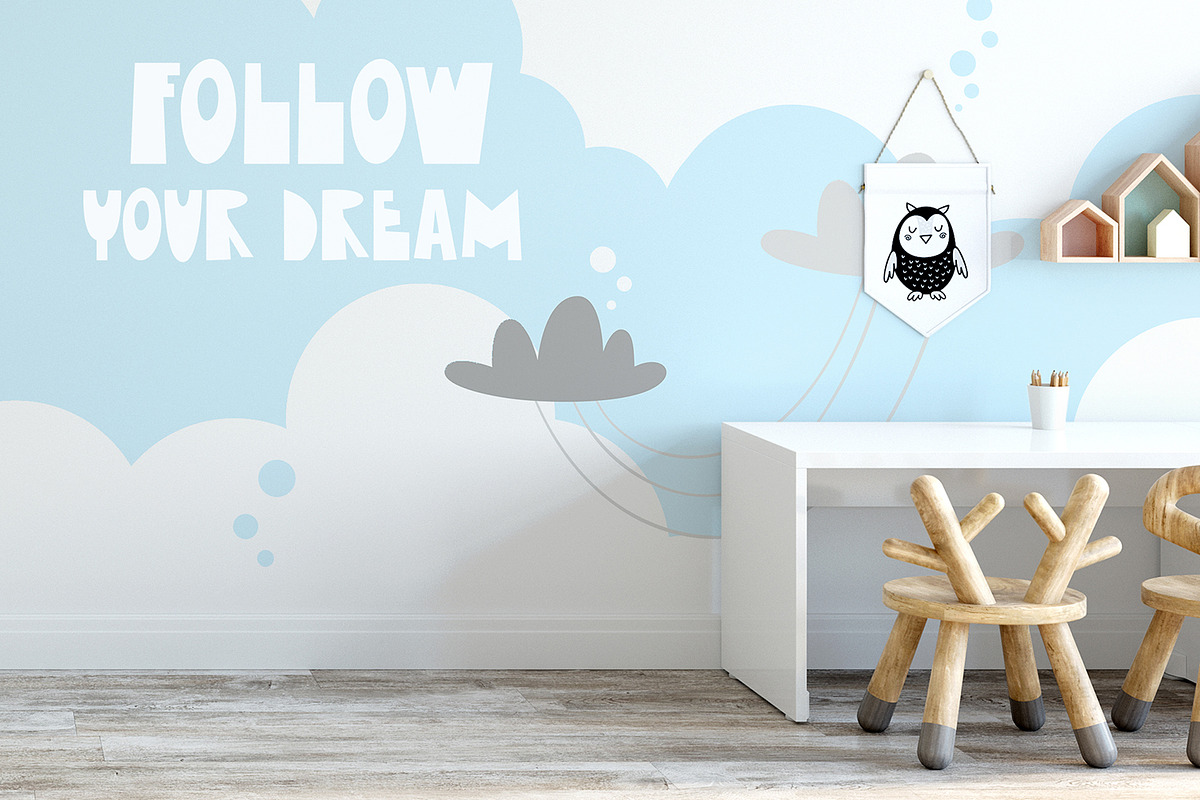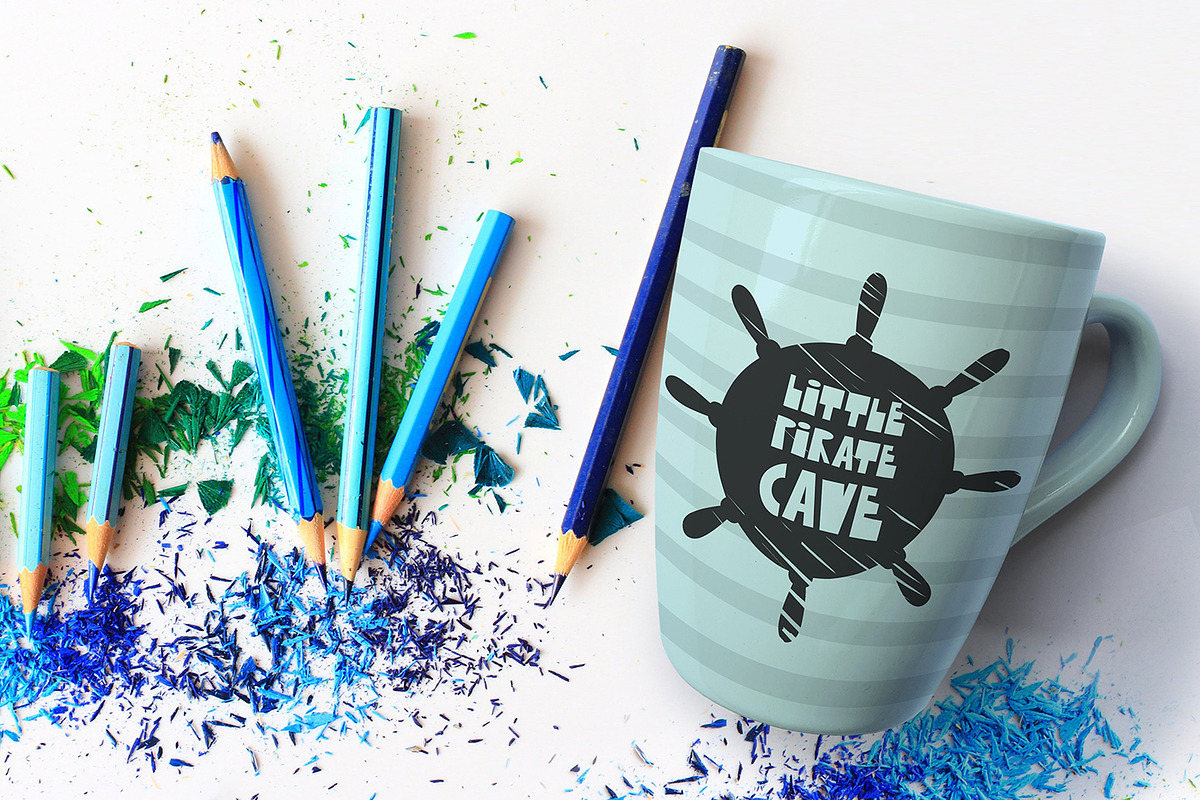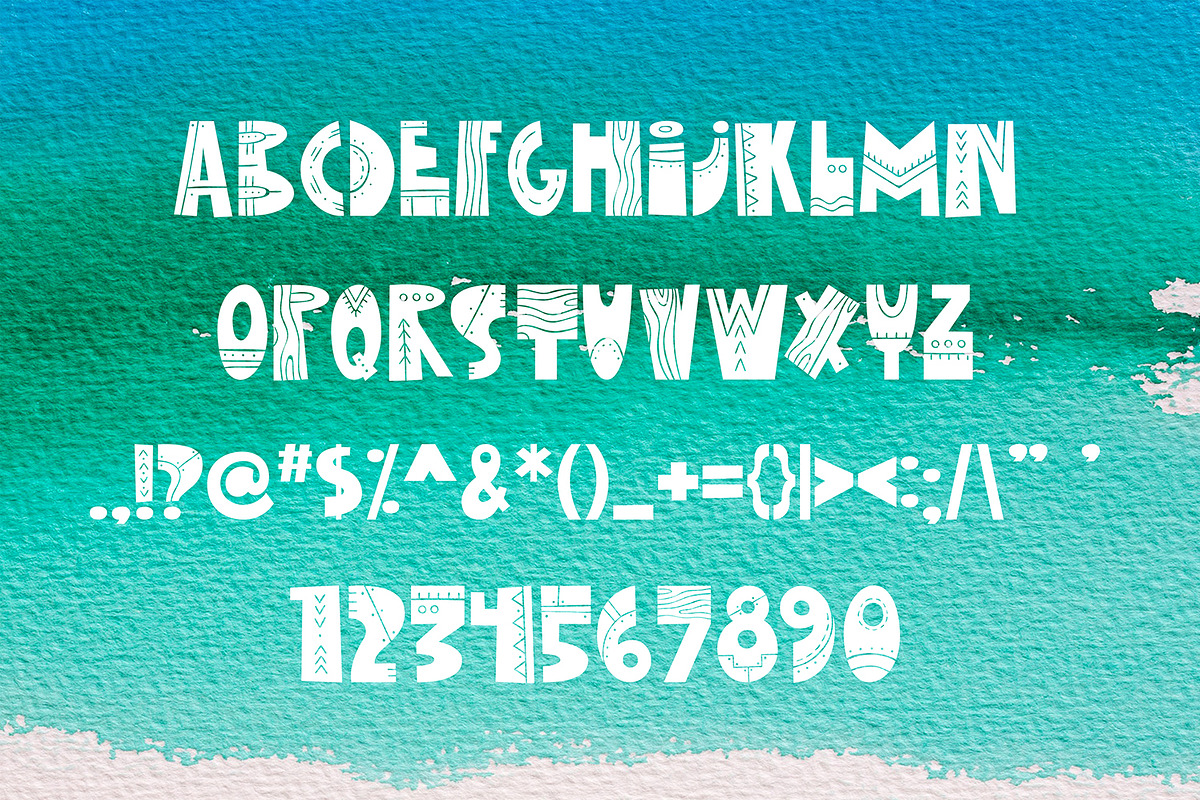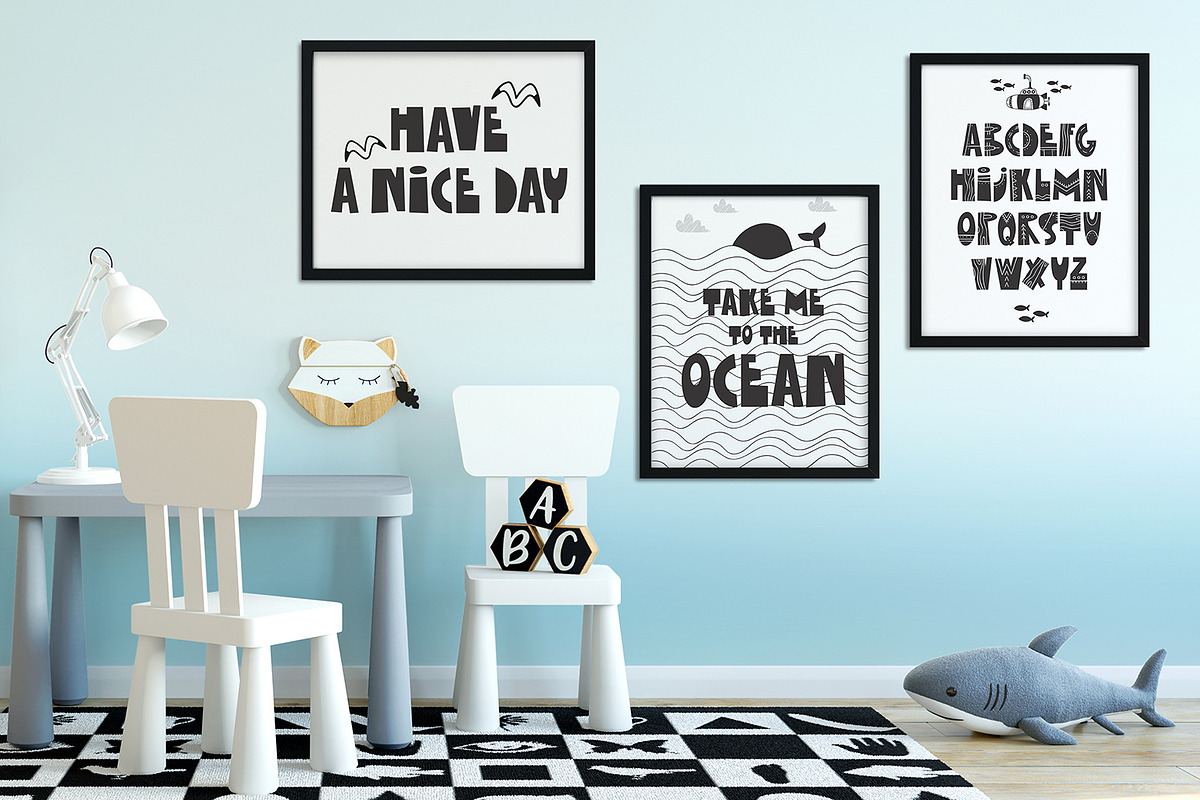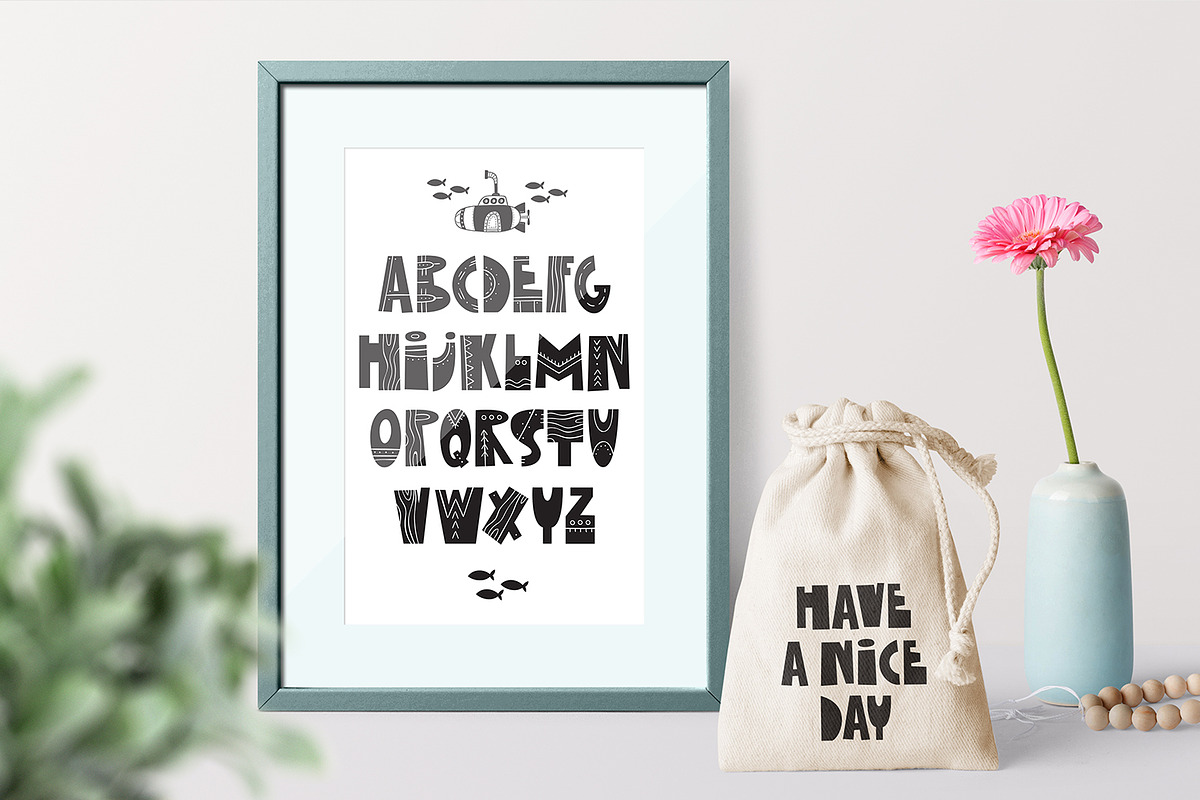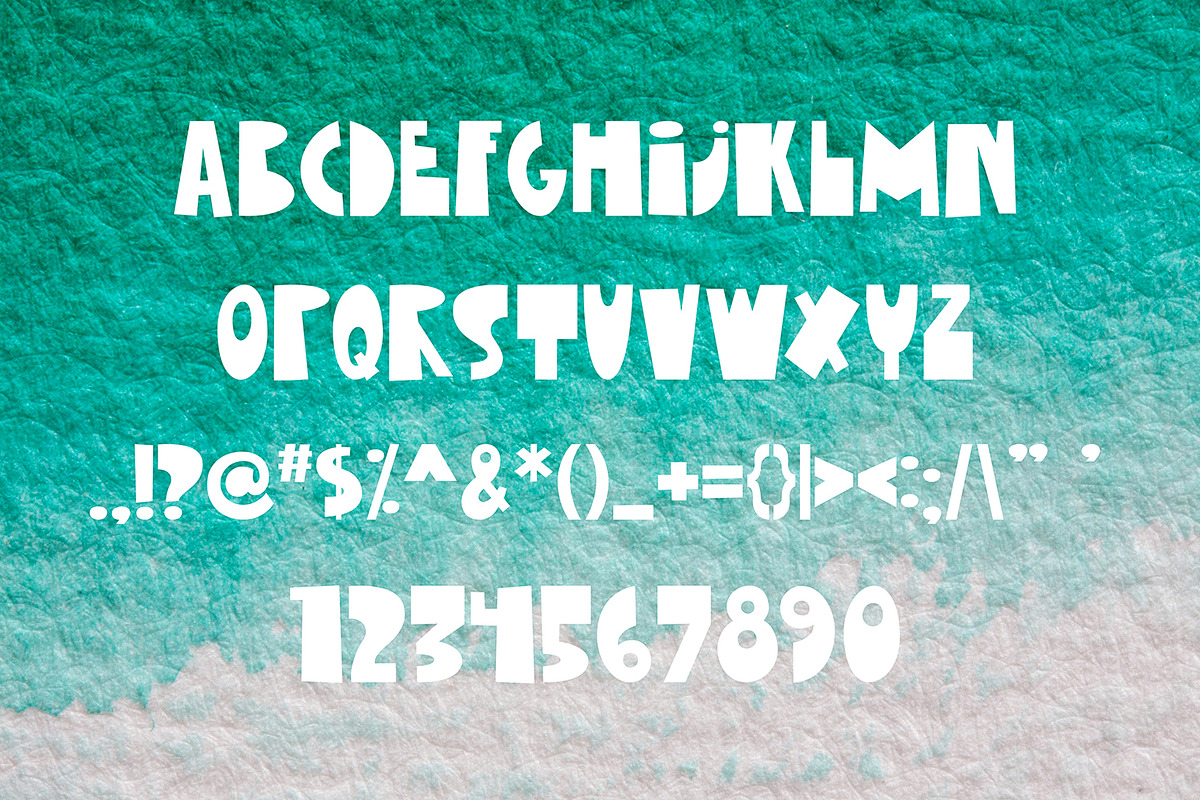
Little Submarine Kids Fonts
This font in Scandinavian style is ideal for the design of children's printed products: posters, stickers, wall-papers, souvenirs, inscriptions on T-shirts, labels, postcards, cups, cards and games. Only your imagination can stop you :)
Little Submarine Kids Fonts by KAZUKA fits naturally into Branding, posters, packaging, typography.